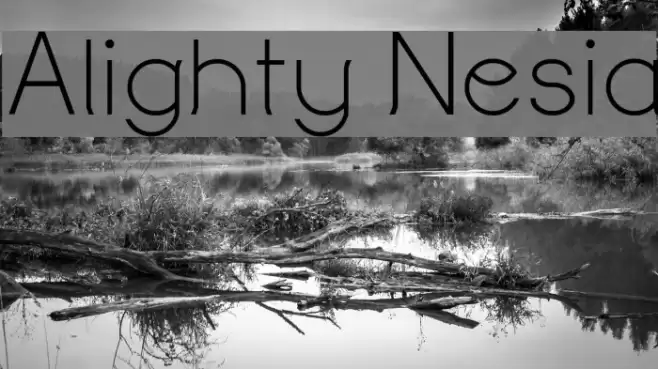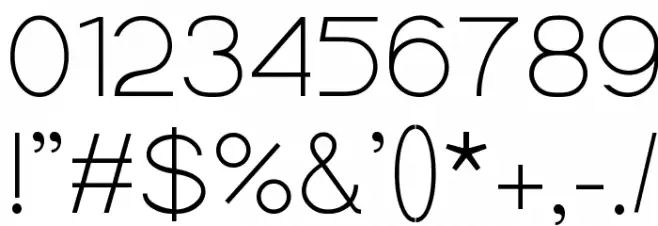
Alighty Nesia Font
Alighty Nesia Description
This font features a clean and modern design with a geometric sans-serif style. The characters are constructed with even strokes and rounded edges, giving it a friendly and approachable appearance. The uppercase letters are uniform in height, while the lowercase letters maintain a consistent baseline, enhancing readability. The numerals are clear and distinct, making them suitable for various applications. Special characters are well-integrated, maintaining the overall aesthetic. This font's simplicity and clarity make it versatile for both digital and print media.
A modern, geometric sans-serif font with clean lines and rounded edges from Uncategorized fonts.